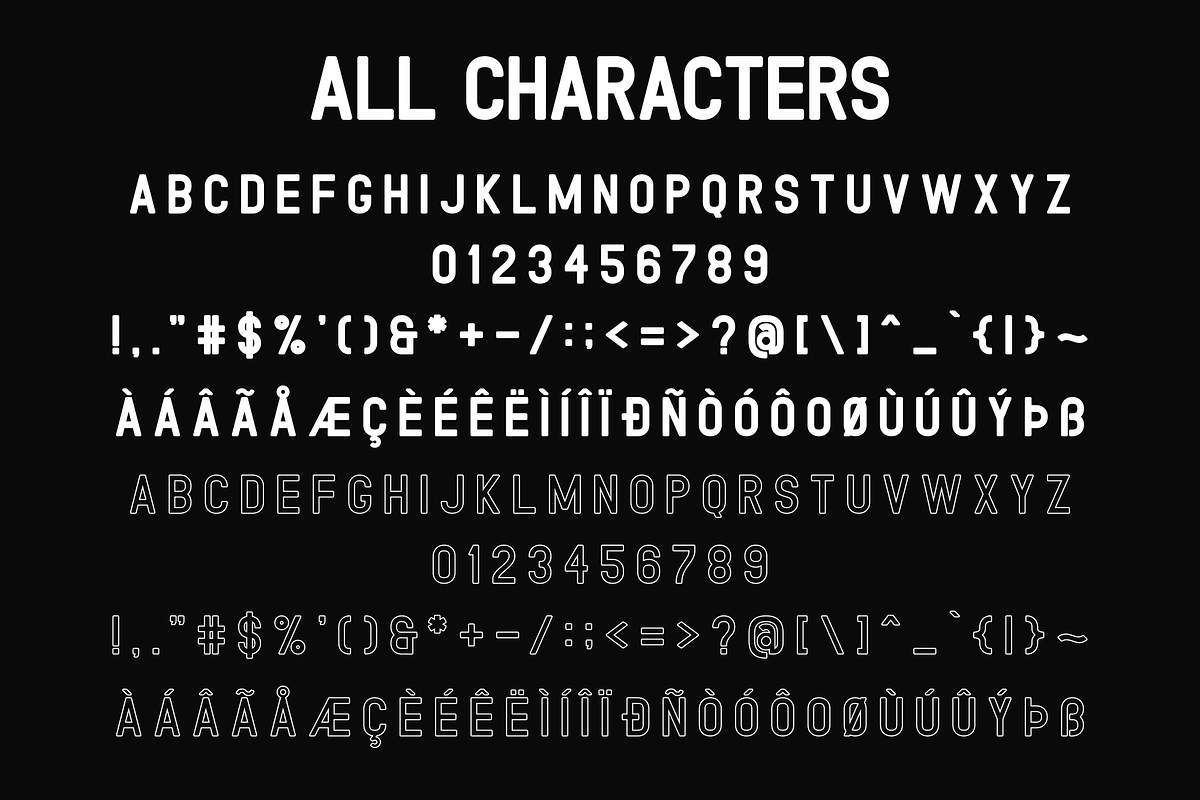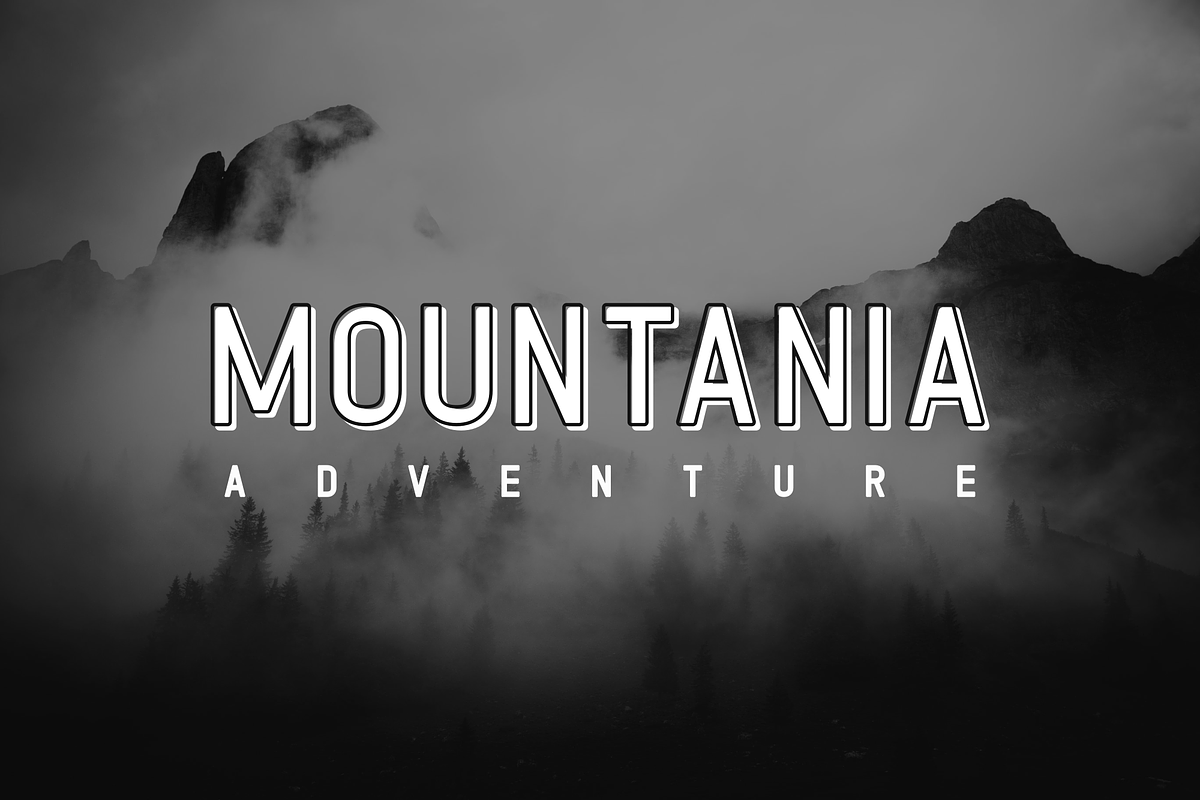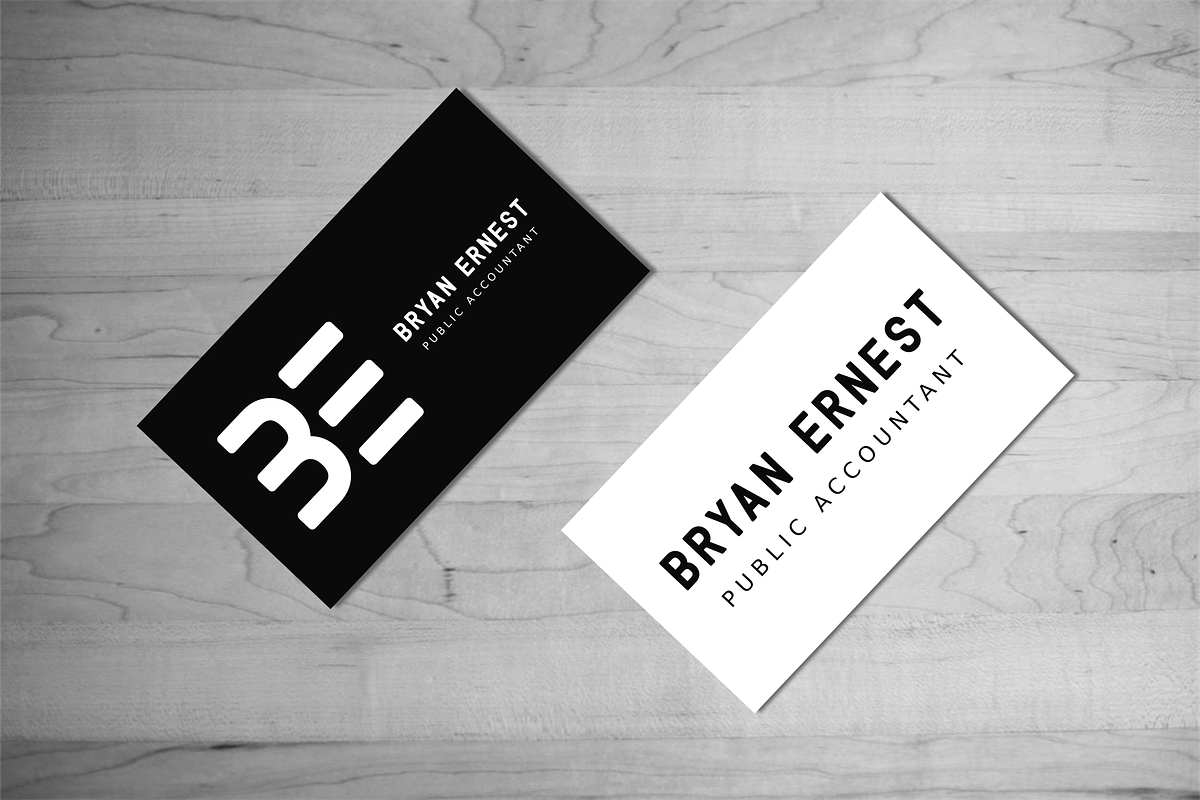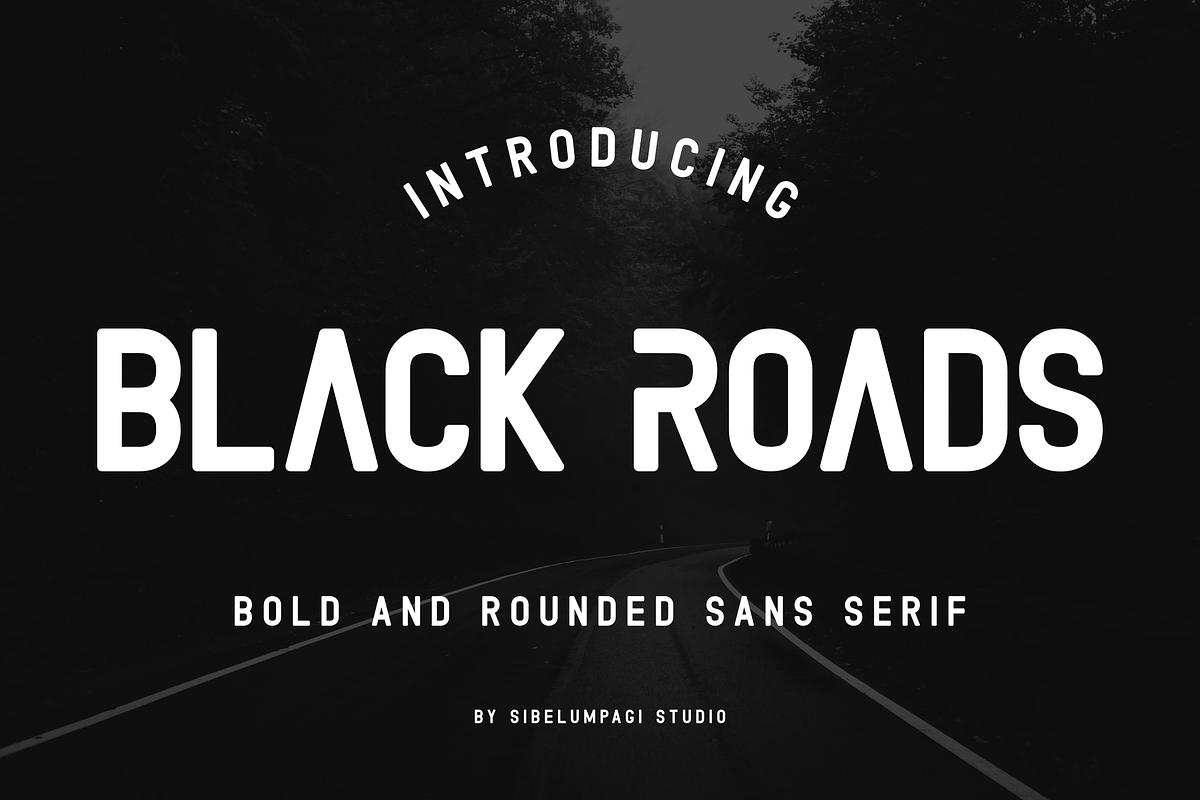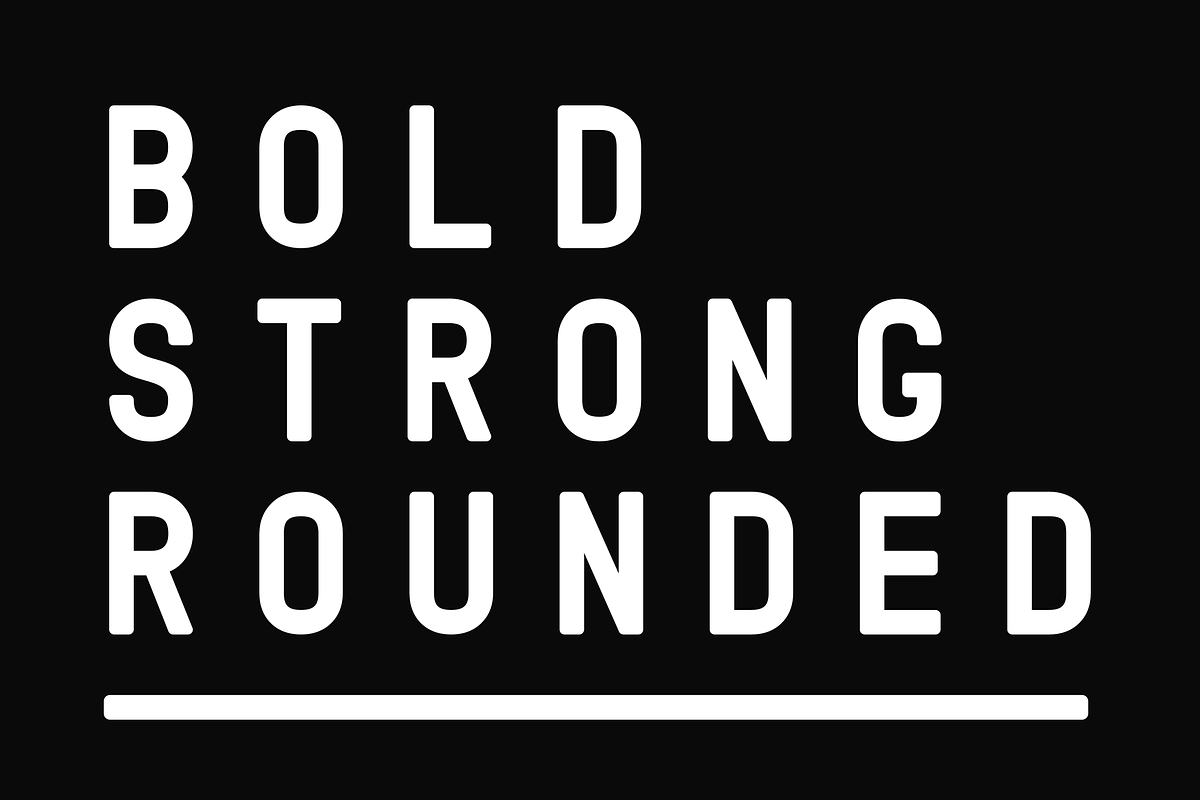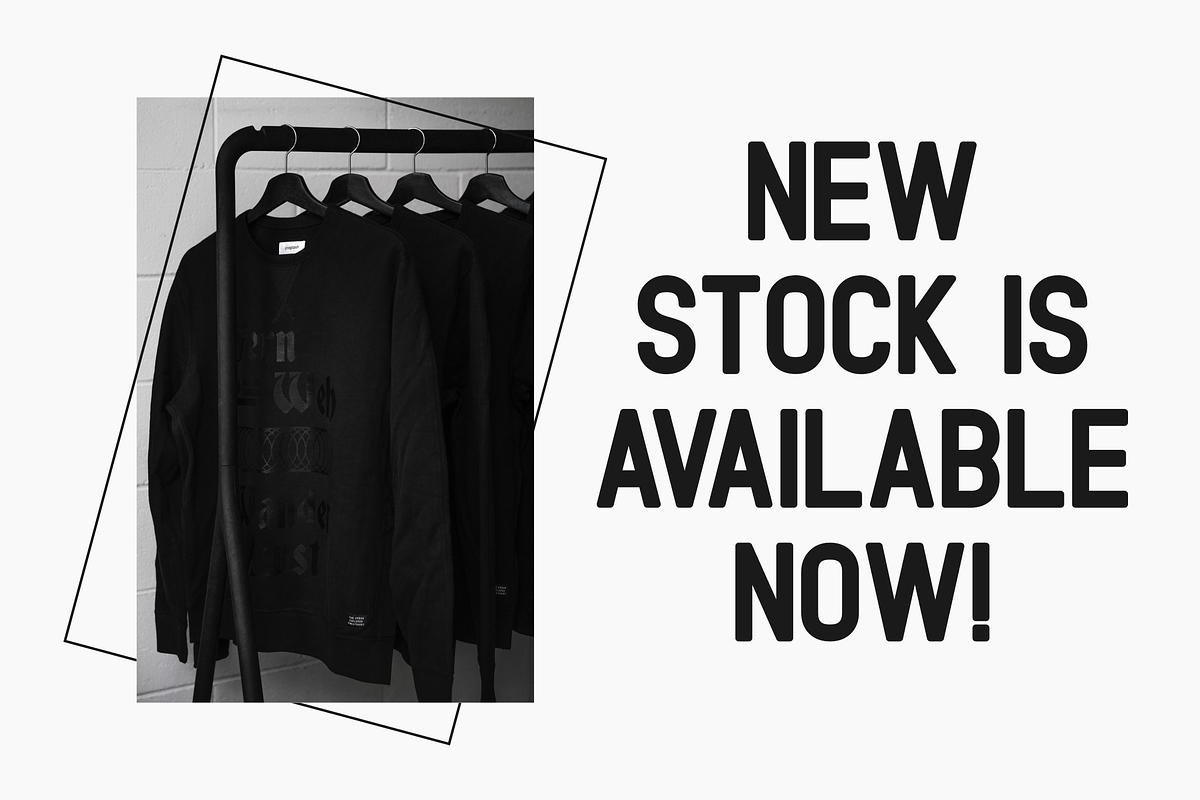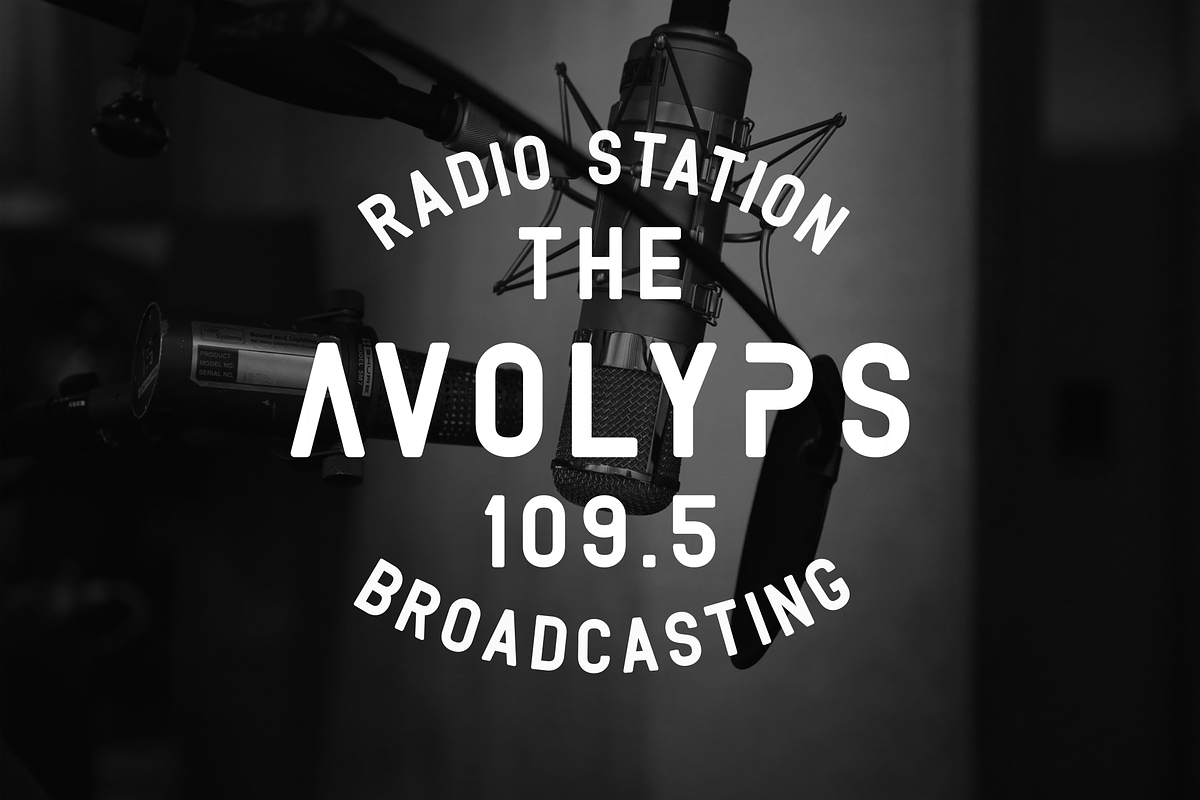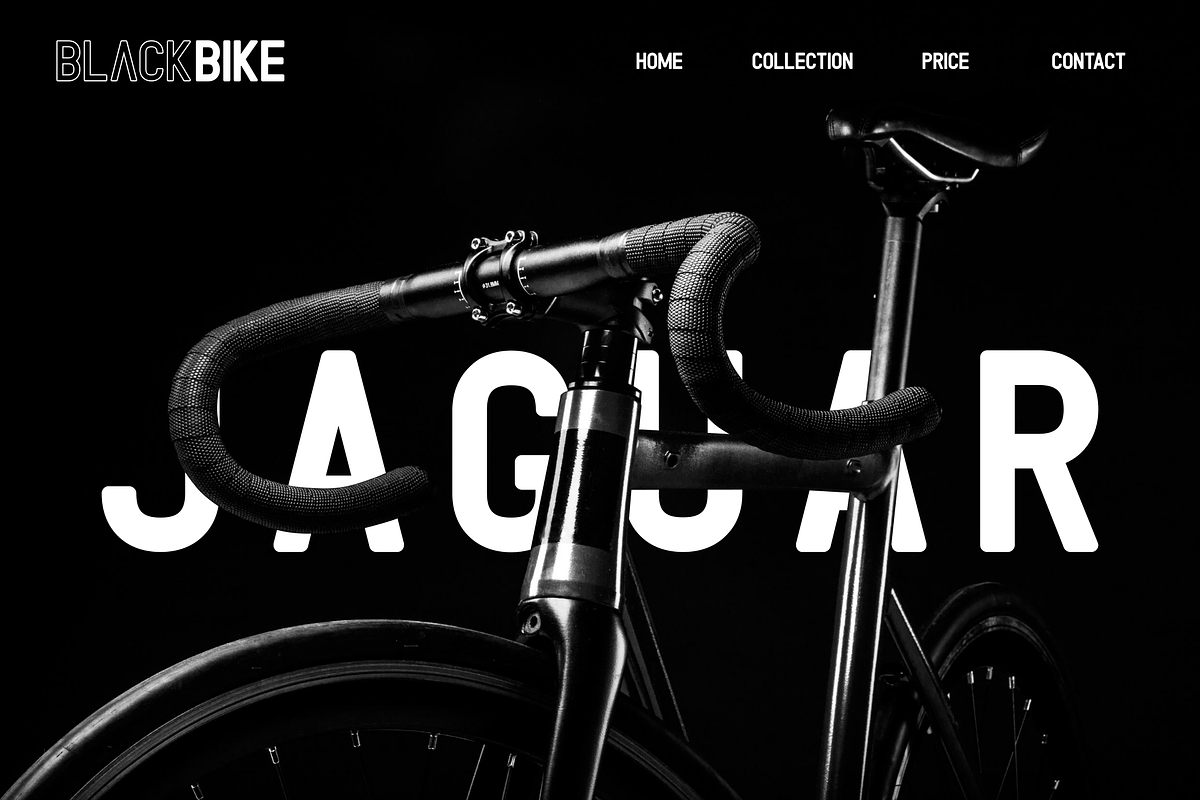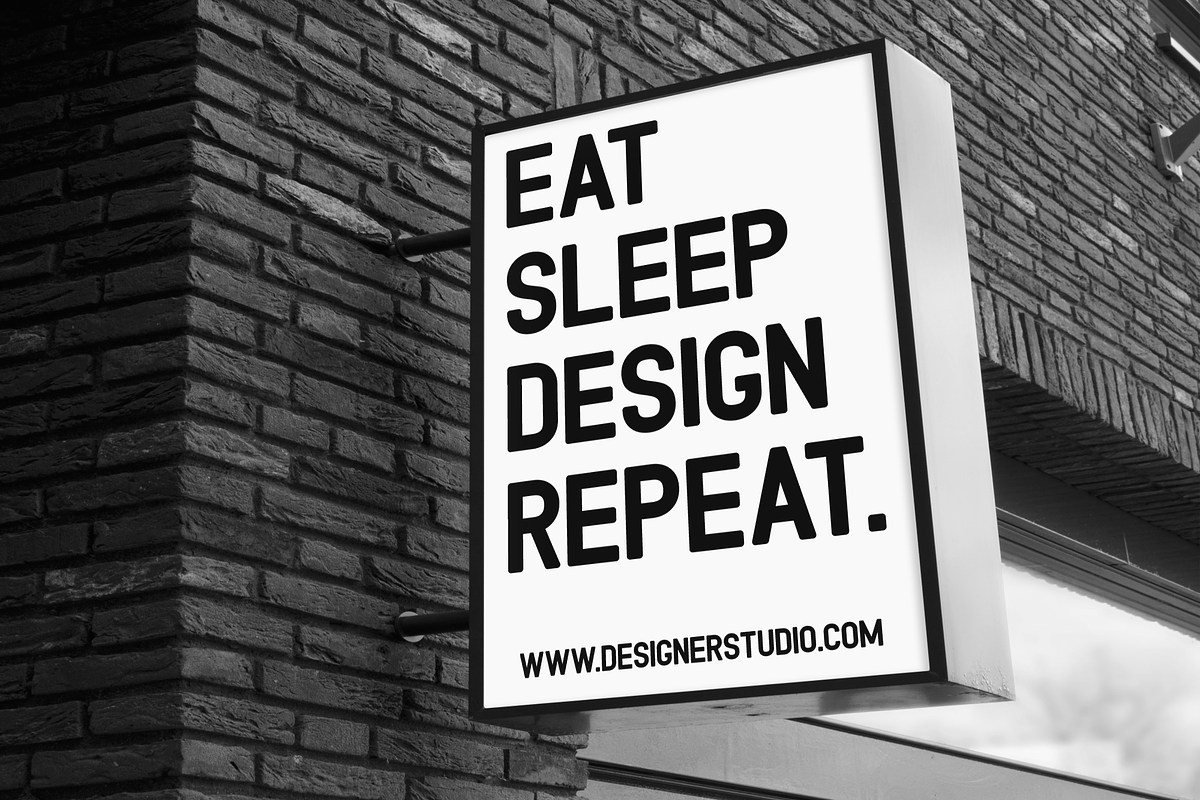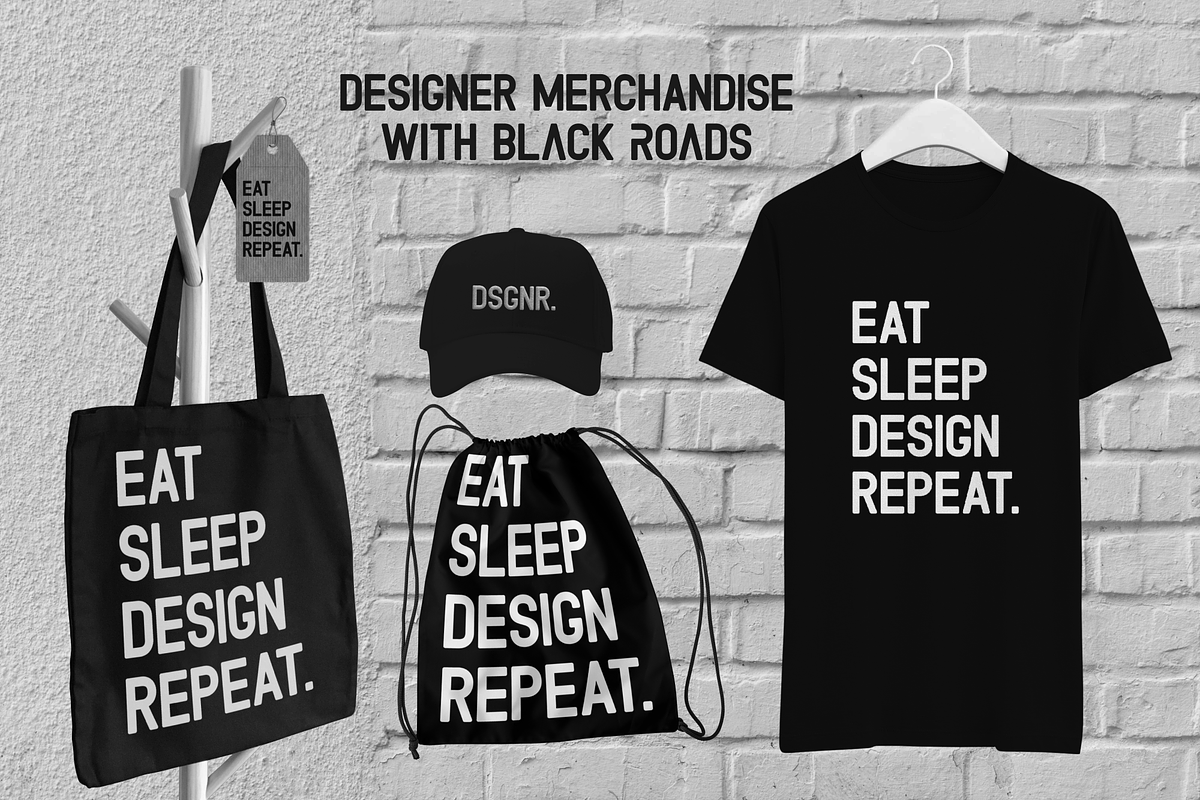
Black Roads - Display Sans Serif
Black Roads is a clean and strong sans serif font with a bold and rounded shape. It comes in two styles regular, and outline. Black Roads added with some alternate characters such as A, B, E, F, P, & R.
Black Roads is a good choice for many different projects such as logos & branding, invitation, stationery, social media posts, apparel, advertisements, product packaging, product designs, label, photography, watermark, special events, or anything.